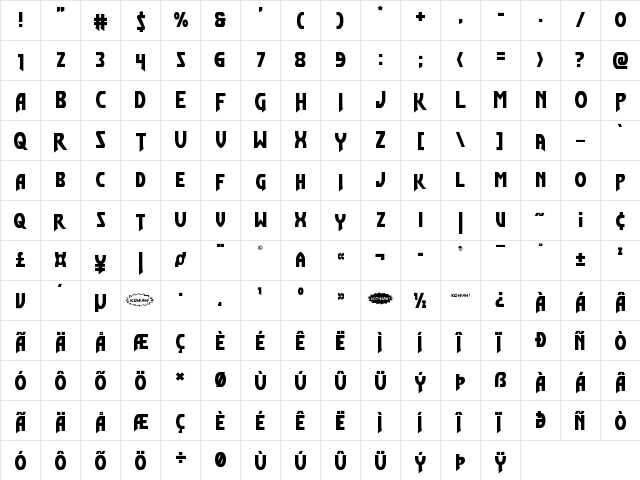
Flash Rogers Straight Regular
Design Context for Flash Rogers Straight Typeface
Flash Rogers Straight is a composed and adaptable typeface that performs quietly and consistently across a wide range of design contexts.